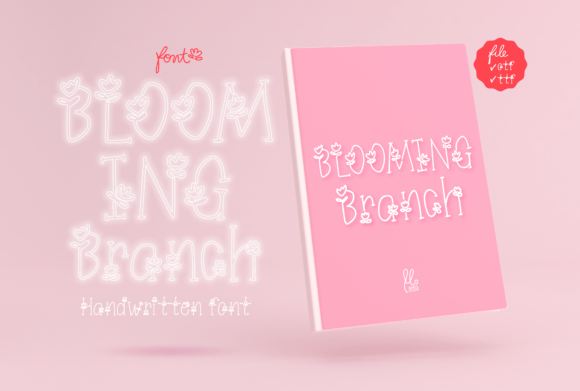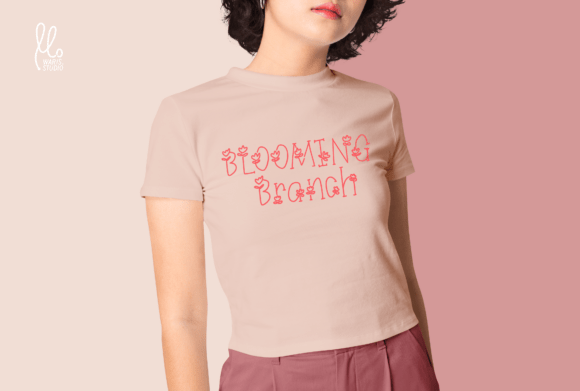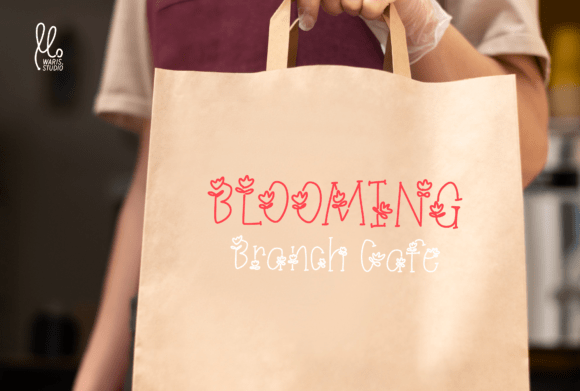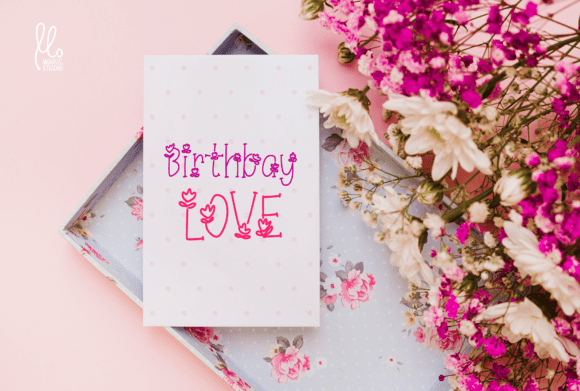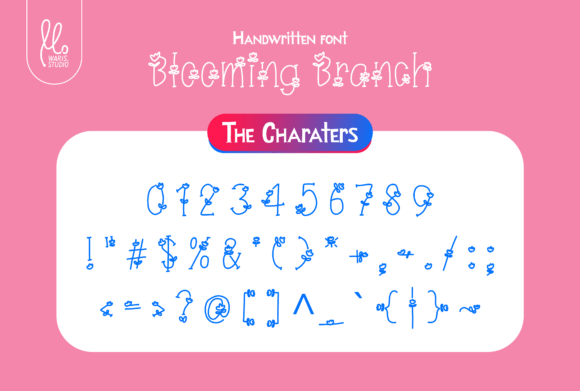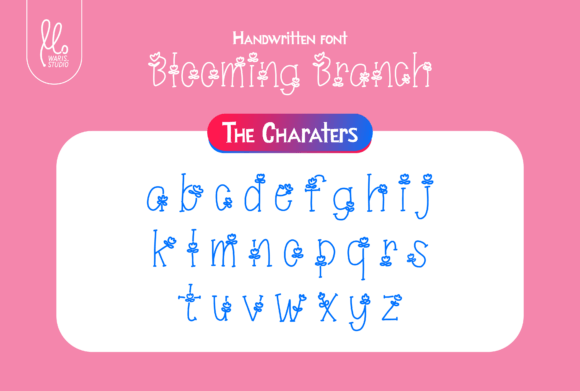
The Perfect Touch: Blooming Branch Font
As a graphic designer, you’ve probably experienced that moment when a font just clicks, and your entire design comes together. For me, it’s when I’m brainstorming a new project and I stumble upon the perfect font to set the tone. That moment happened recently when I discovered the Blooming Branch Font – and I knew I had to share it with you.
Blooming Branch Font is more than just a font; it’s an embodiment of warmth, vibrancy, and a friendly touch. With its unique design, gracefully flowing lines, and delicate floral details, this font is ready to elevate your designs to a professional level. Whether you’re a seasoned designer or a DIY enthusiast, the Blooming Branch Font is an invaluable addition to your toolkit.
Blooming Branch Font Key Features
- Font Family: Blooming Branch Font offers a unique floral design, perfect for spring and Easter-themed projects.
- Unique Characteristics: The font features intricate floral designs, intricate branch details, and subtle color variations, giving it a unique and eye-catching appearance.
Blooming Branch Font Review
I’ve had the chance to play around with the Blooming Branch Font, and here’s my honest take.
- The font’s organic, hand-drawn feel is absolutely charming. It’s perfect for adding a touch of whimsy to your designs.
- The Blooming Branch Font has a wide range of characters, including numbers and punctuation. This makes it a solid choice for most design projects.
- The font is highly customizable, with many variations to choose from. This allows you to tailor the look to fit your specific design needs.
- The font’s high variability in character spacing and letterforms can make it difficult to read at smaller sizes.
- The font may not be the best choice for large blocks of text, as it can be overwhelming to the reader.
Overall, I think the Blooming Branch Font is a beautiful and versatile choice for designers looking to add some personality to their projects. However, it may not be the best fit for every design situation. With some careful consideration of the font’s limitations, it can be a great addition to your design toolkit.
For the best results, use the Blooming Branch Font in conjunction with a subtle background color or texture. This will allow the font to take center stage and add a touch of elegance to your design.
The Blooming Branch Font is perfect for:
– Baby shower invitations and decorations
– Floral-themed designs and branding
– Elegant and sophisticated designs for corporate materials
Alternative Fonts for Blooming Branch Font
Carolyna Pro is a modern script font that can be used for various design purposes such as branding, invitations, and packaging. It is suitable for elegant and sophisticated designs. Compared to Blooming Branch Font, Carolyna Pro has a more refined and polished look, making it ideal for high-end designs.
Great Vibes is a beautiful and elegant script font that can be used for various design purposes such as branding, signage, and posters. It is suitable for designs that require a touch of sophistication and elegance. Compared to Blooming Branch Font, Great Vibes has a more fluid and cursive feel, making it ideal for designs that require a sense of movement.
Alex Brush is a elegant and sophisticated script font that can be used for various design purposes such as branding, invitations, and packaging. It is suitable for designs that require a touch of elegance and sophistication. Compared to Blooming Branch Font, Alex Brush has a more refined and polished look, making it ideal for high-end designs.
Q: Can I customize the Blooming Branch Font?
Yes, the Blooming Branch Font is a fully editable OpenType font, which means you can customize it using advanced features like ligatures, swashes, and stylistic sets. To access these features, you will need to use a design application that supports OpenType, such as Adobe Illustrator or InDesign.